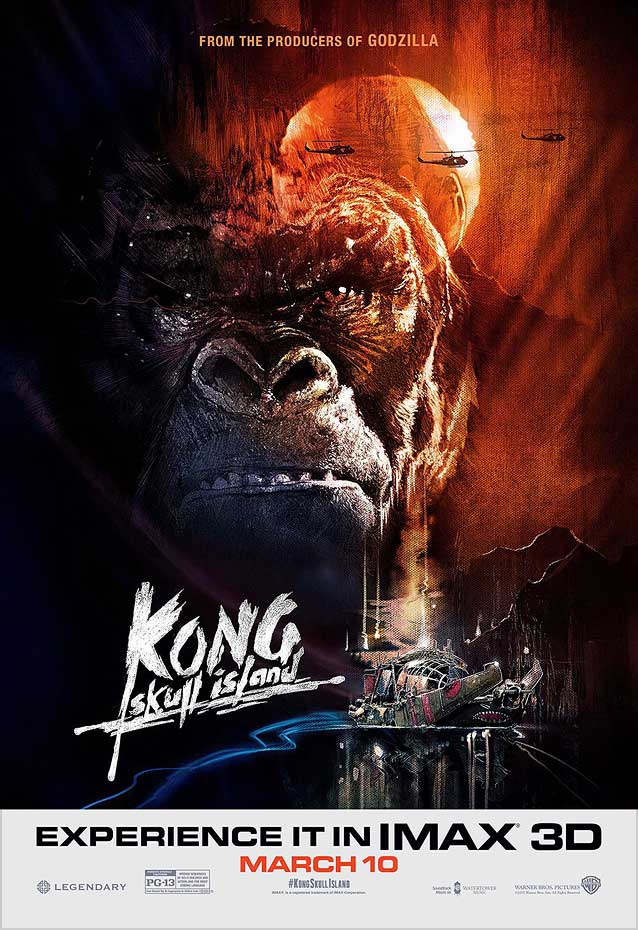
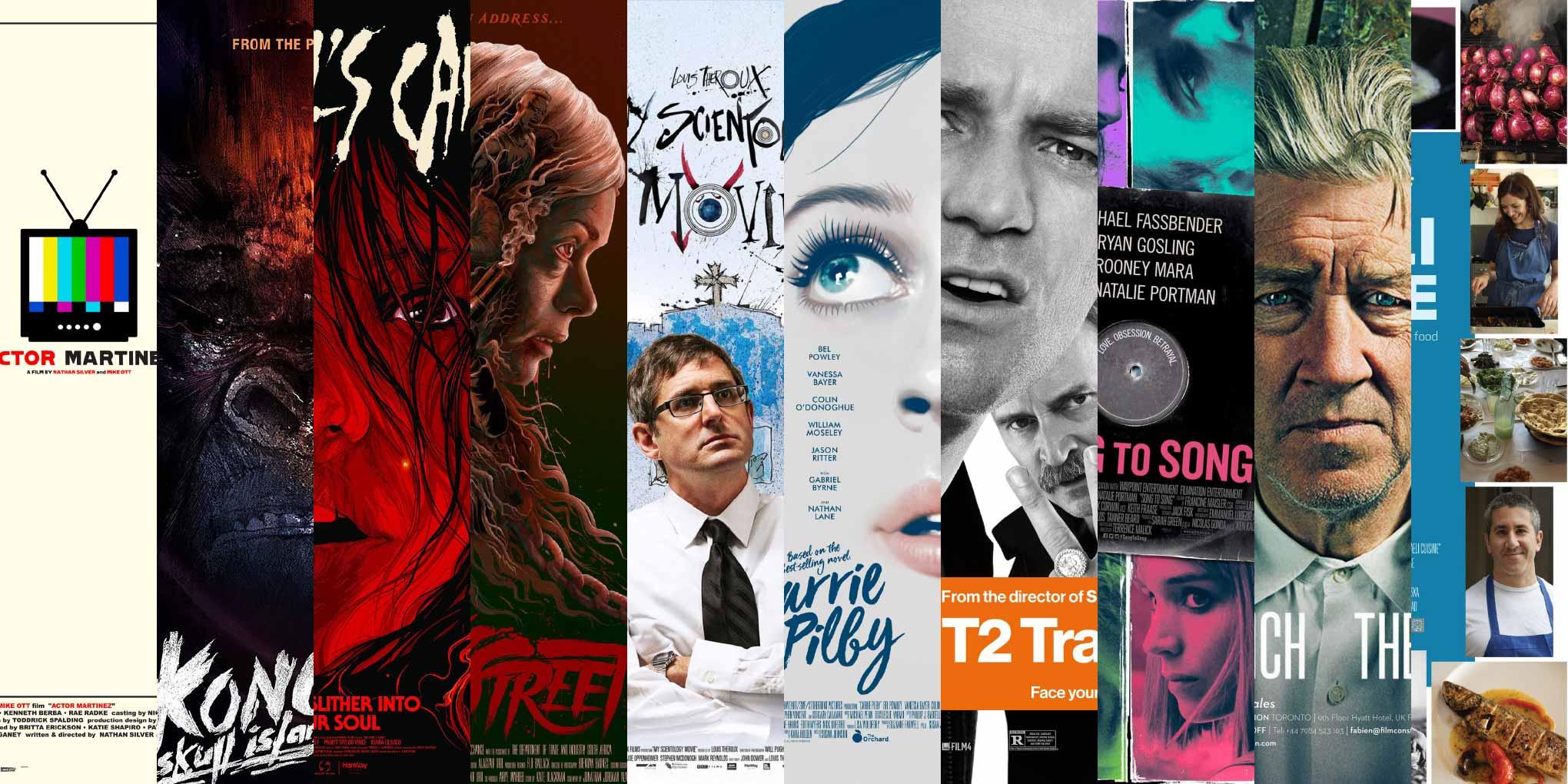
Actor Martinez © 2016 Mary Jane Films. This intriguing minimalist poster forms part of a cohesive series on view in the Small Form Films gallery.
Kong: Skull Island © 2017 Warner Bros & Legendary Entertainment. Illustration style, color palette, layout, typography—everything is just picture-perfect in Bond’s homage to the early blockbusters from the 1970s. |
With their IMAX special edition poster, Little Giant Studios pays tribute to…
…Tom Jung and Bob Peak’s iconic painted art for Apocalypse Now. |
The Devil’s Candy © 2015 Snoot Entertainment. Apocalypse Now’s influence also surfaces in Ken Taylor’s gorgeous artwork.
I like how the blotchy painted lettering is similar, but not identical, in the two posters. |
House on Willow Street © 2016 the Darkside, Fat Cigar Productions. The painted theatrical one-sheet references the classic horror movie posters from the same era.
My Scientology Movie © 2015 BBC Films. The inimitable Ralph Steadman lends his scratchy pen strokes and watercolors to Mister.S’ theatrical one-sheet combining photography with an illustrated background. |
Carrie Philby © 2016 Braveart Films. Beautifully painted key art from The Refinery, with strands of blue hair framing shimmering, lifelike eyes.
This whimsical alternate design creates fun orange color accents with the goldfish, wallpaper, and movie title. |
T2 Trainspotting © 2017 TriStar Pictures. Black-and-white photography, bold Neue Haas Grotesk knocked out of intense orange, and a lot of attitude are all this poster needs to sling you twenty years into the past.
Song to Song © 2017 Broad Green Pictures. The vinyl single aesthetic serves this theatrical one-sheet very well. |
David Lynch: The Art Life © 2016 Absurda. It’s always fun to see friends’ typefaces in the wild. This poster, for example, features Erik van Blokland’s Action Condensed. The chiseled leg on the R bears some resemblance to Amplitude.
In Search of Israeli Cuisine © 2016 Florentine Films / Sherman Pictures. Eagle beautifully ties together this book-cover-like poster. |